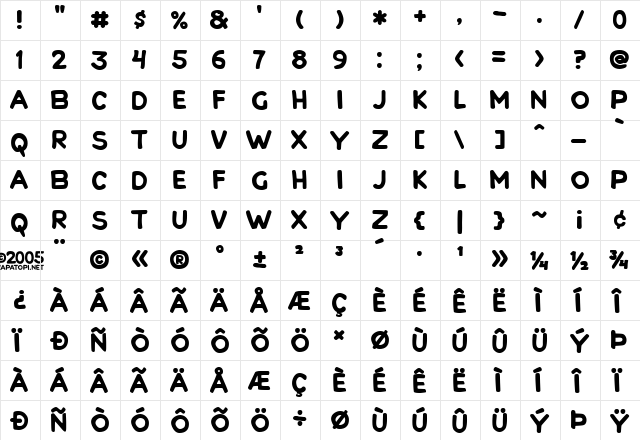
Duarte Juramento Regular
Design Context for Duarte Juramento Typeface
Duarte Juramento offers clean, dependable letterforms without strong stylistic allegiance, making it a practical choice for designers who need flexibility.